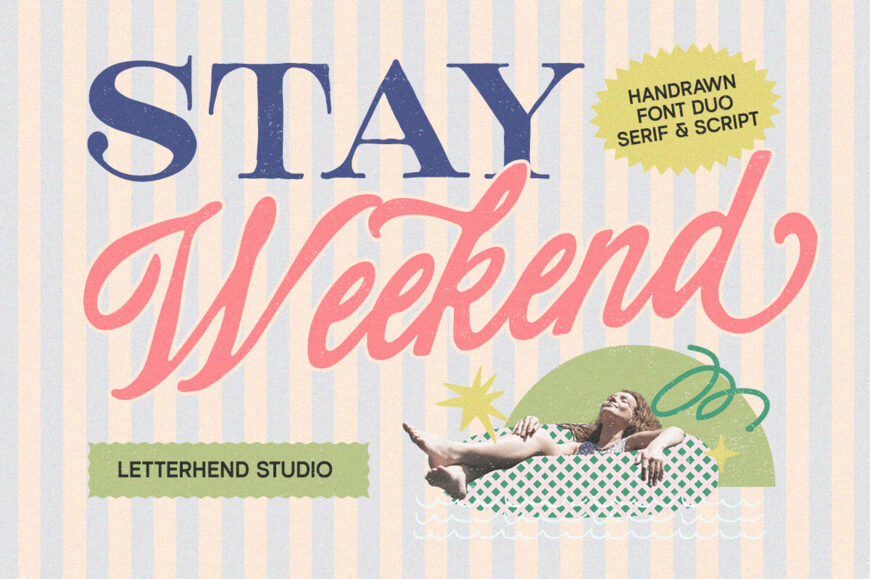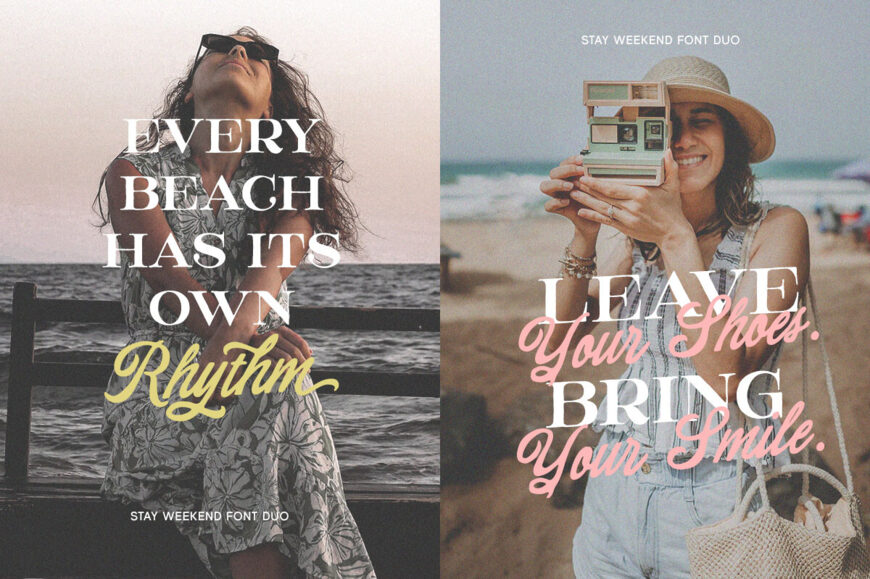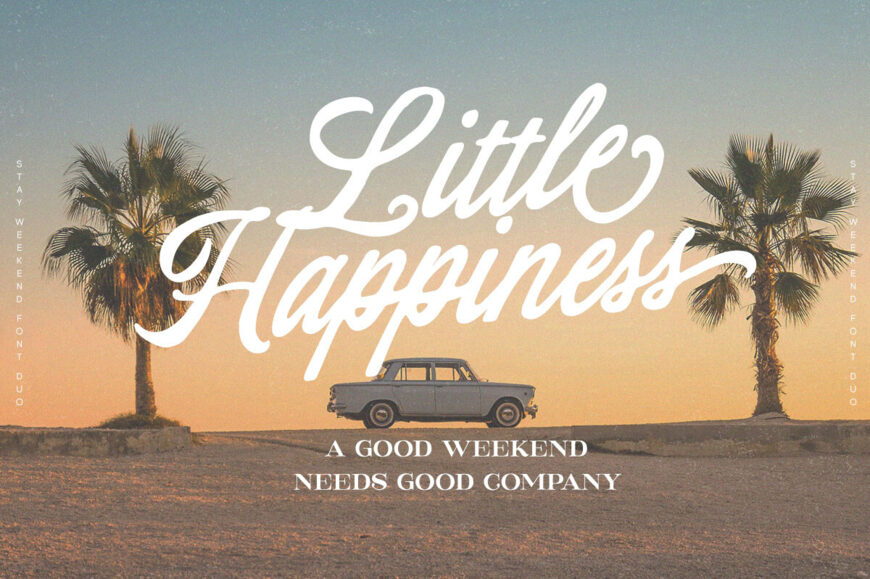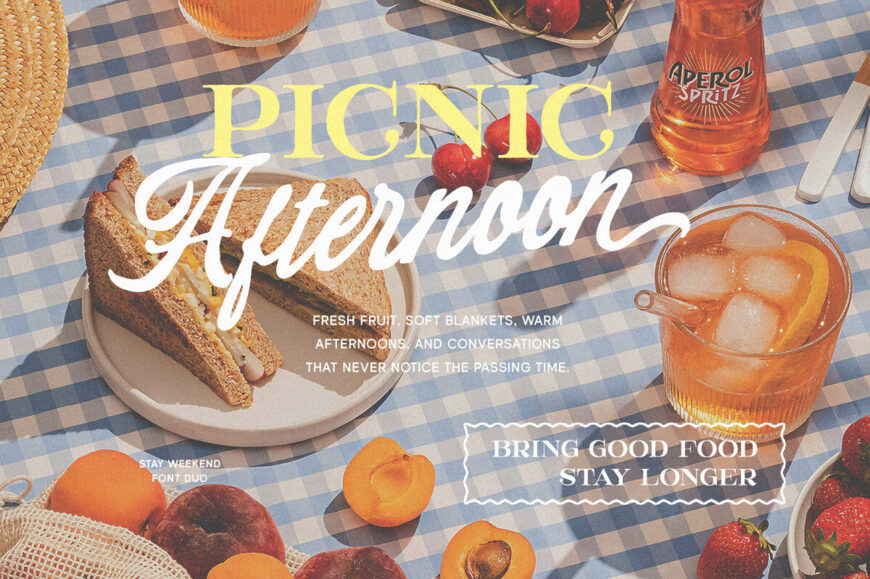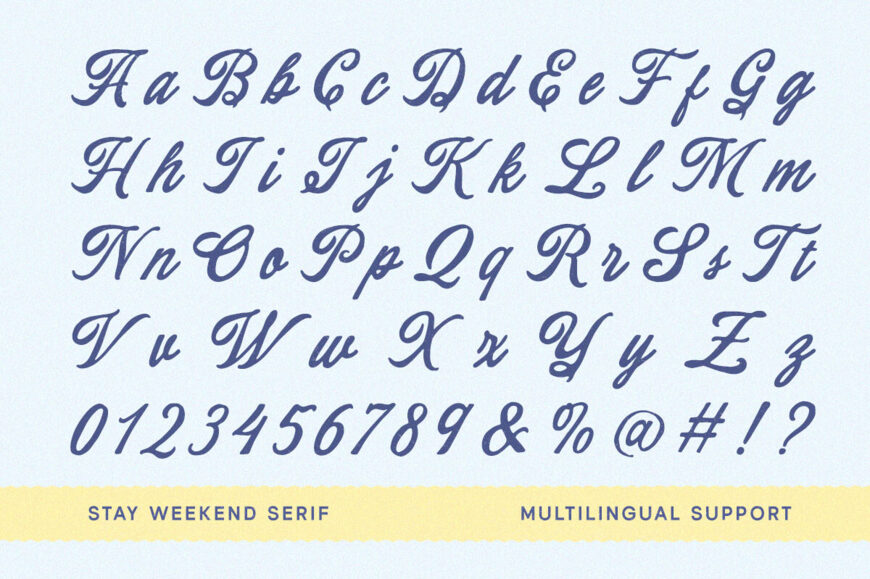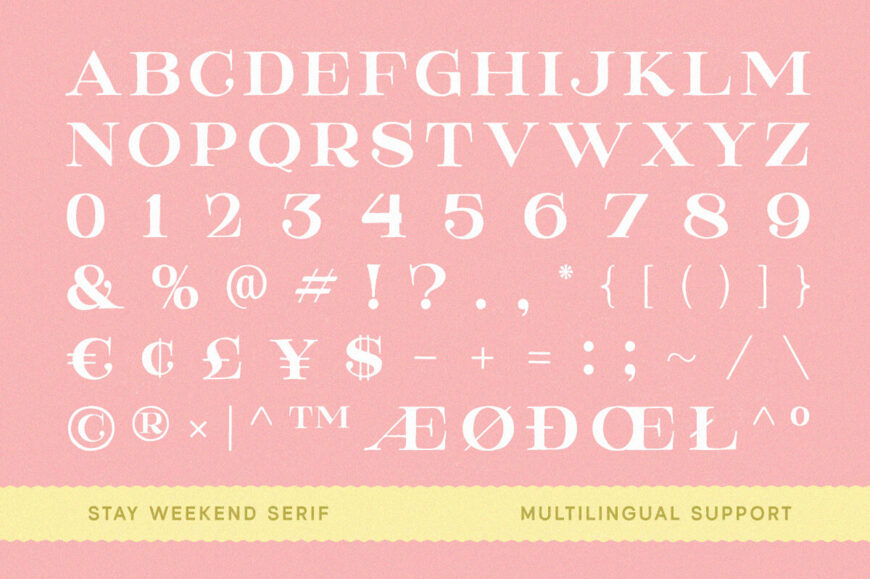
Stay Weekend Font Duo
Embrace effortless vacation vibes and sunny, vintage nostalgia with Stay Weekend, a handdrawn font duo! Perfectly pairing a textured, classic serif display font with a flowing, expressive handwritten script, this combination brings warmth, laid-back charm, and retro-inspired personality to any creative layout.
Whether you’re designing summer event posters, lifestyle branding suites, aesthetic quote graphics, travel magazines, merchandise, or product packaging, Stay Weekend delivers a breezy, handcrafted touch that instantly transports your audience to a sunny weekend getaway.